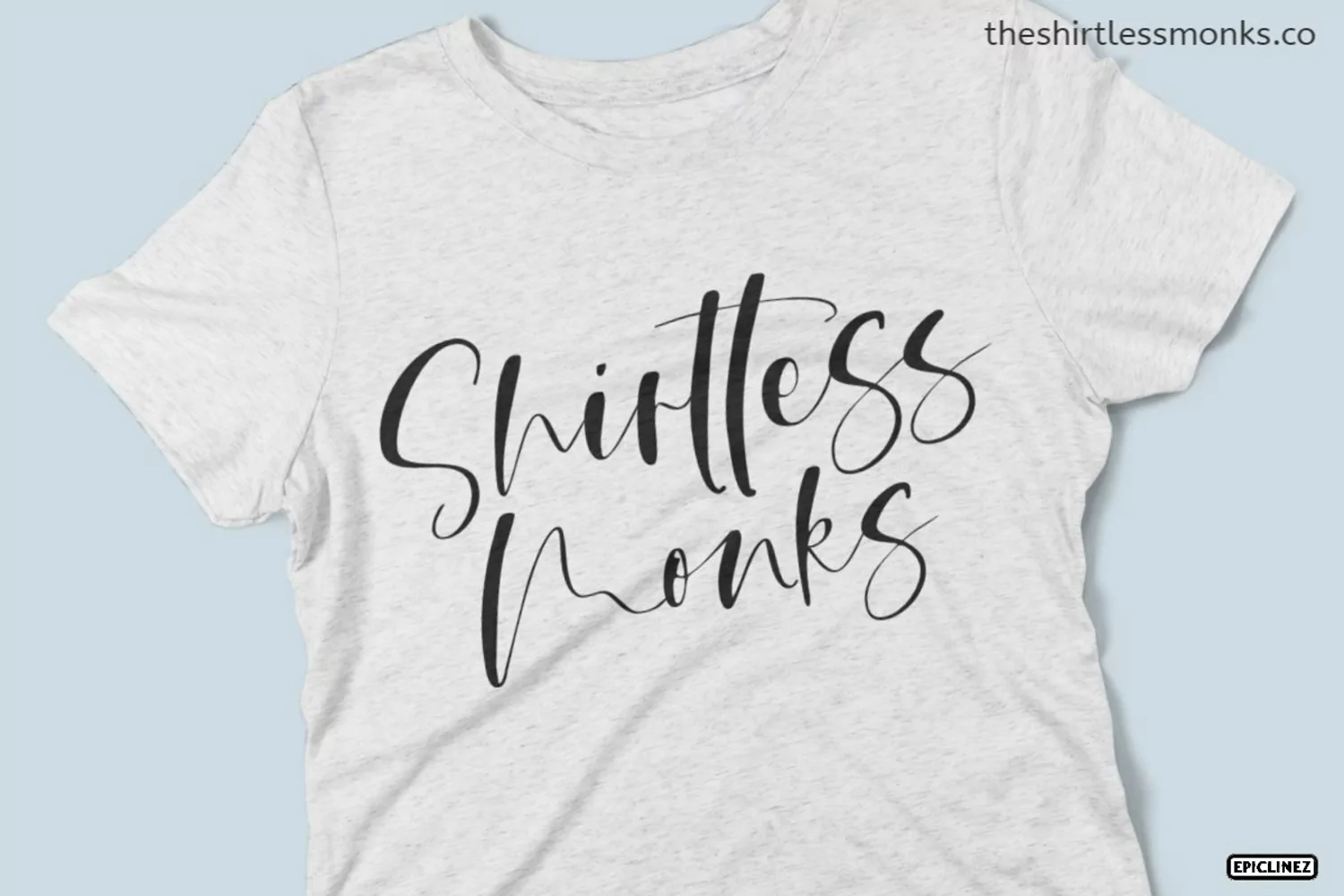
Katniss is a stylish and modern calligraphy font. It is a nice choice for creating eye-catching logos, branding, and quotes. It has beautiful and well-balanced characters and as a result, it matches a wide pool of designs. Add it to your most creative ideas and notice how it makes them come alive!
The font Katniss contains 204 glyphs. Supporting more than 66 languages, from English to Zulu. It is also PUA encoded and has open-type features such as ligatures.